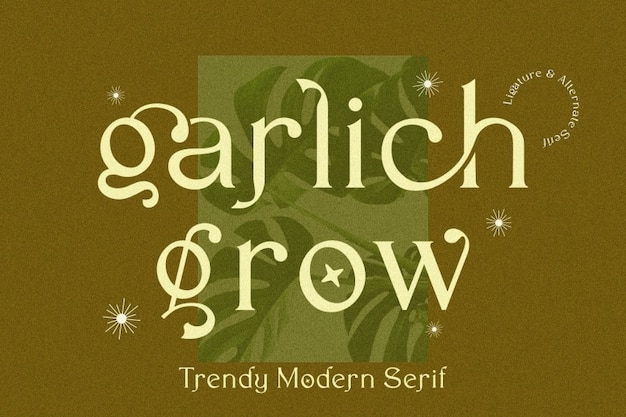
Garlich Grow Font
Garlich Grow is a font that blends modern aesthetics with a touch of mystique and retro charm. Each character exudes an otherworldly aura, invoking a sense of magic and nostalgia. Perfect for designs seeking a unique and captivating vibe, Garlich Grow adds an enchanting and timeless allure, making it perfect for branding, posters, and artistic endeavors.